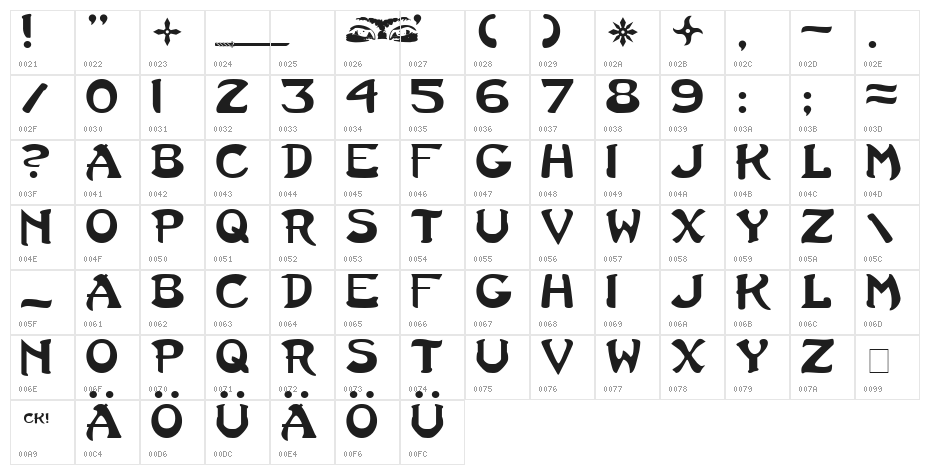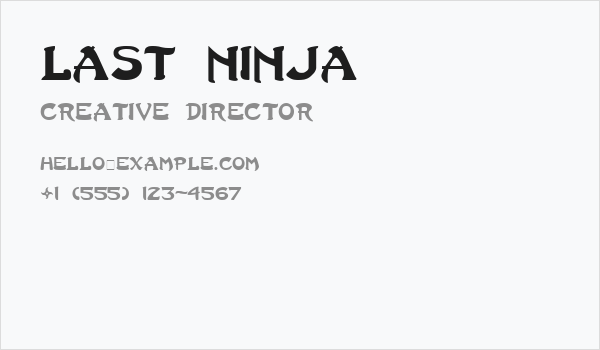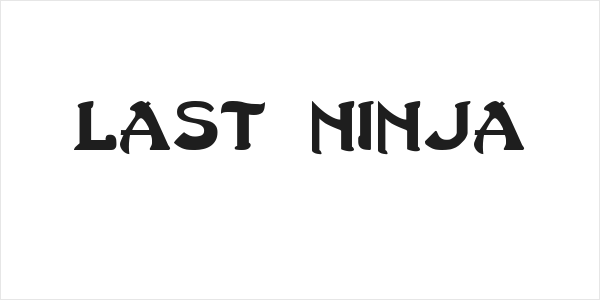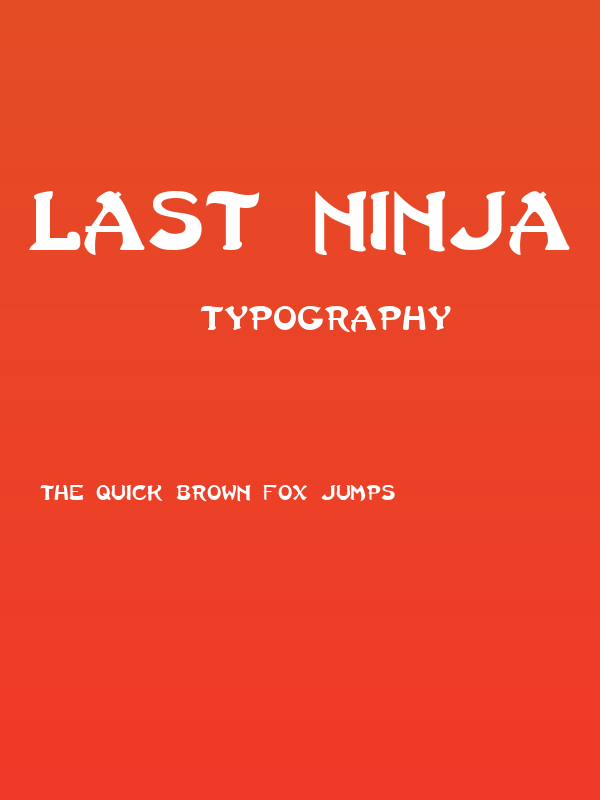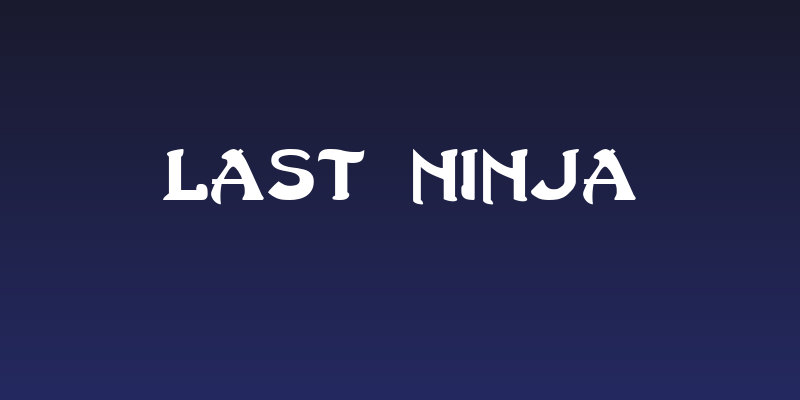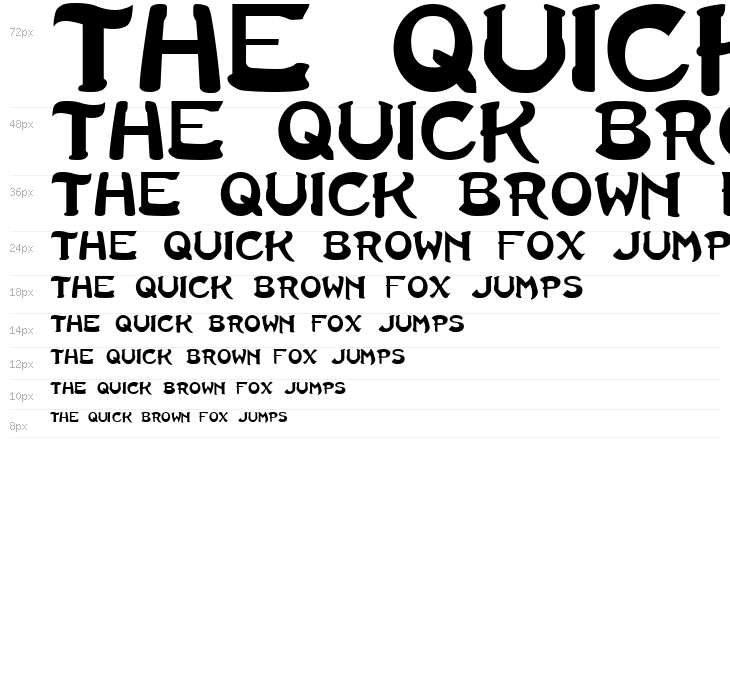
Last Ninja Font
Last Ninja Description
This font features a bold and dynamic style with a strong presence. The characters are designed with a unique flair, incorporating sharp edges and curves that give it a distinctive look. The uppercase letters are particularly striking, with a sense of movement and energy. The numerals and special characters maintain this bold aesthetic, ensuring consistency across all glyphs. This font is ideal for projects that require a dramatic and eye-catching typeface.
| Proposed Projects | Perfect for video game titles, movie posters, and branding that requires a strong visual impact. |